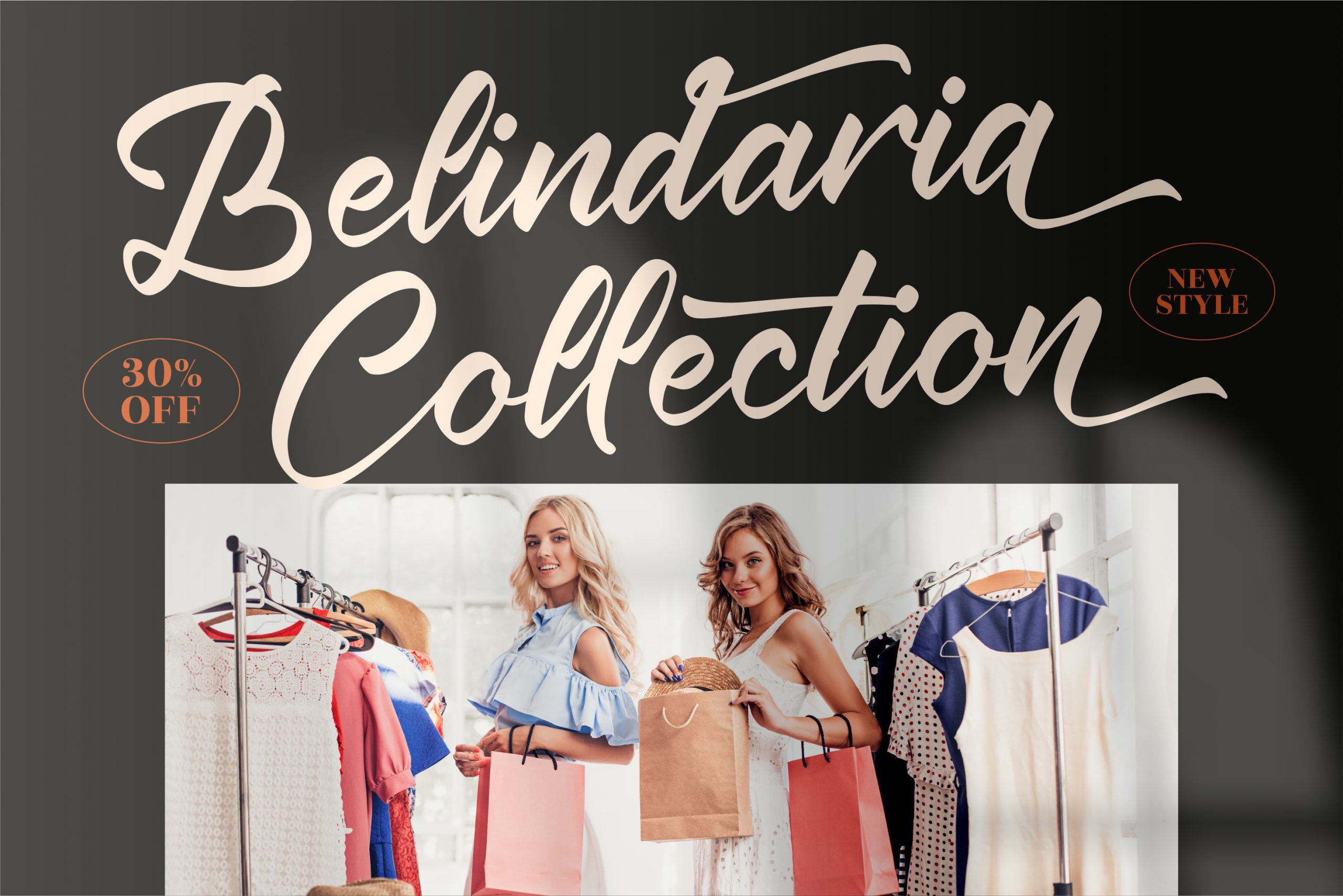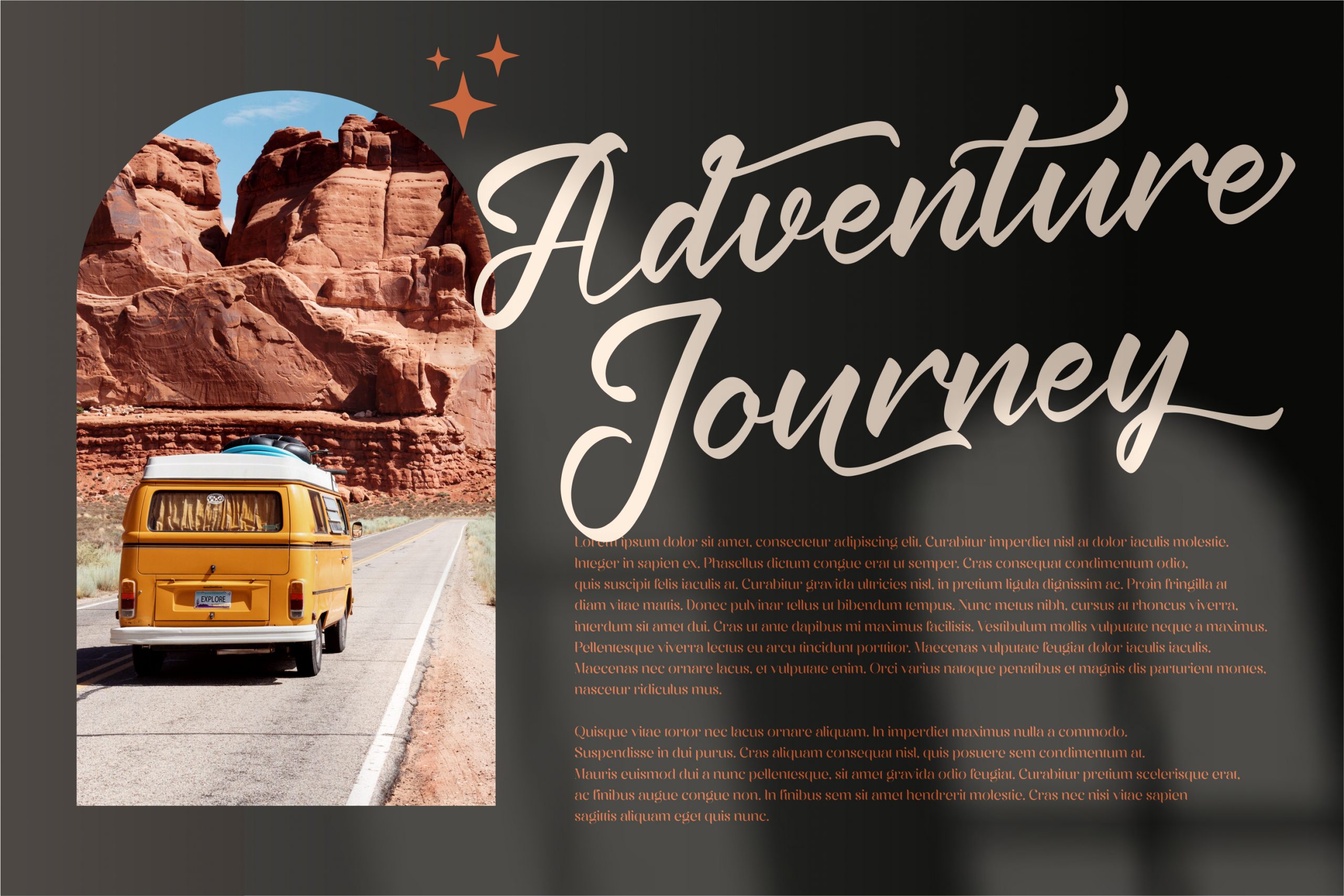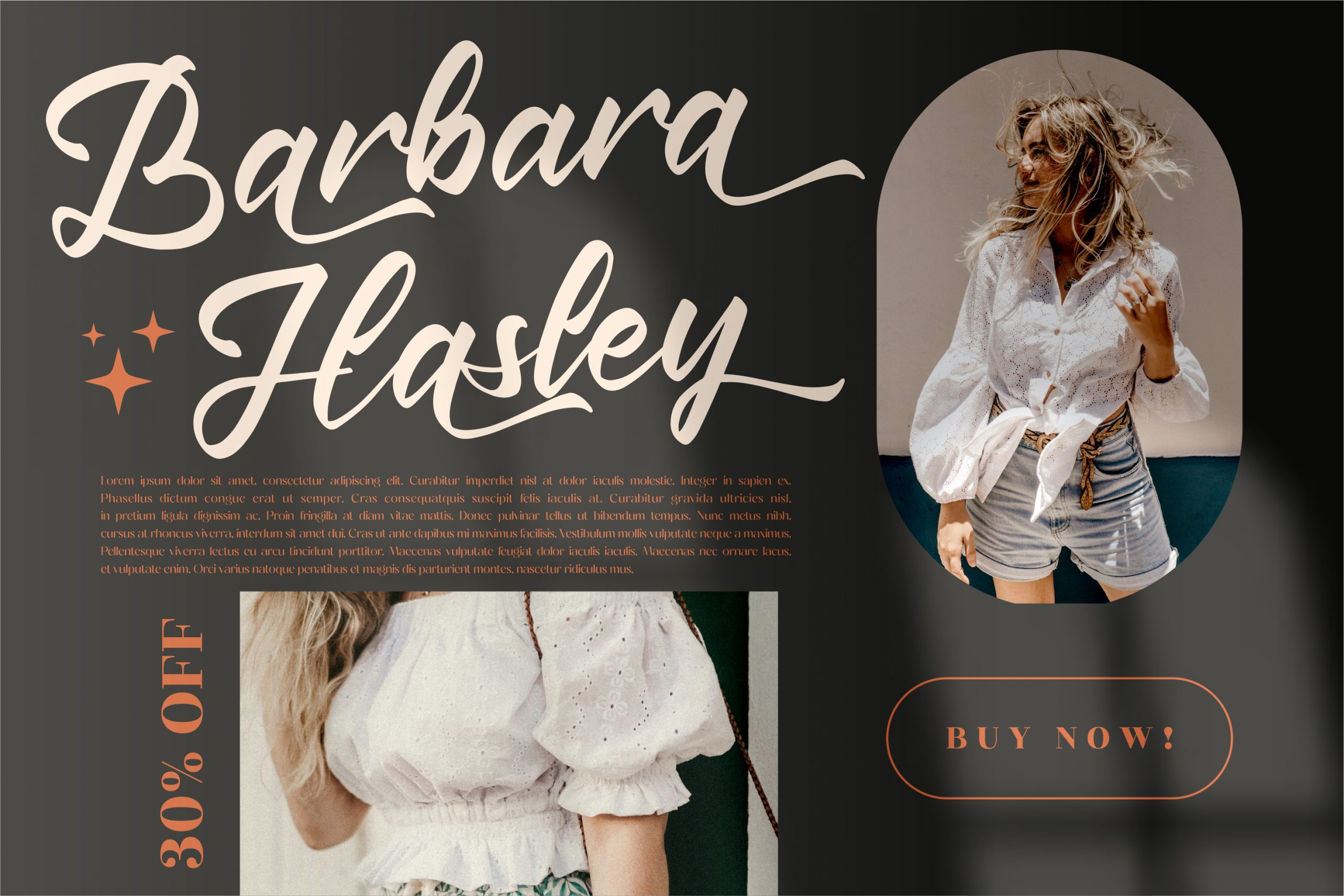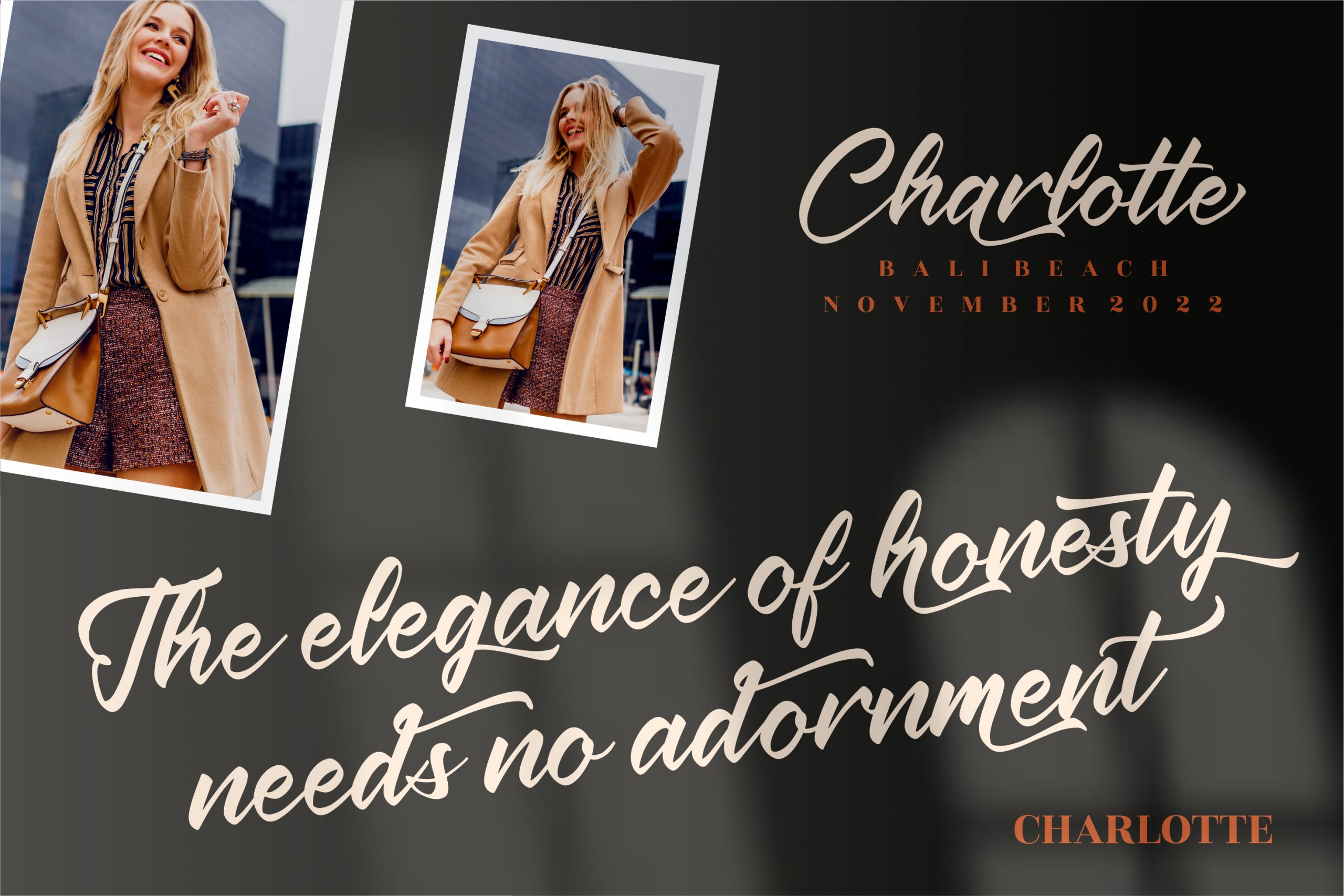
Krakatau Mountain Font
Krakatau Mountain Script Font
This is a premium signature font, suitable for any projects such as: logos, branding projects, homeware designs, product packaging, mugs, quotes, posters, shopping bags, t-shirts, book covers, name card, invitation cards, greeting cards, label, photography, watermark, special events, and all your other luxury projects that need a premium signature taste.